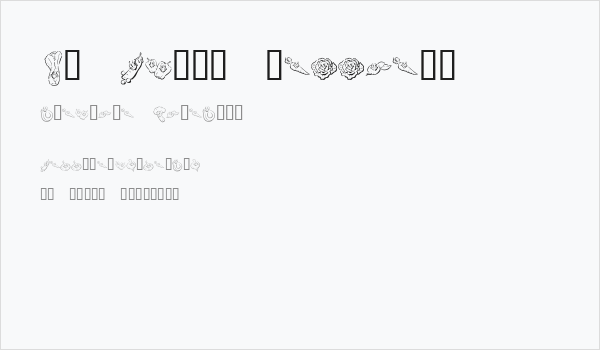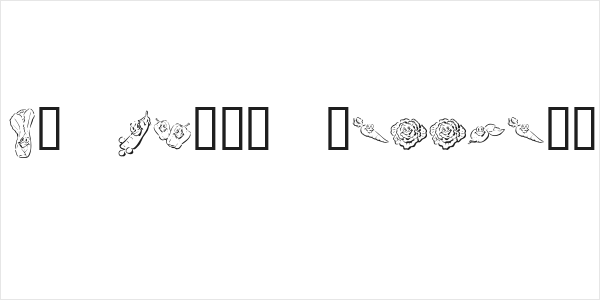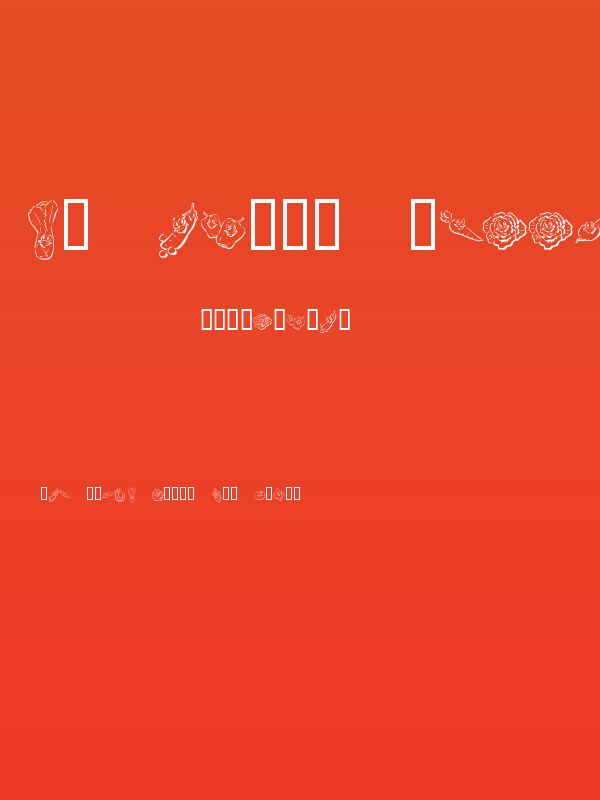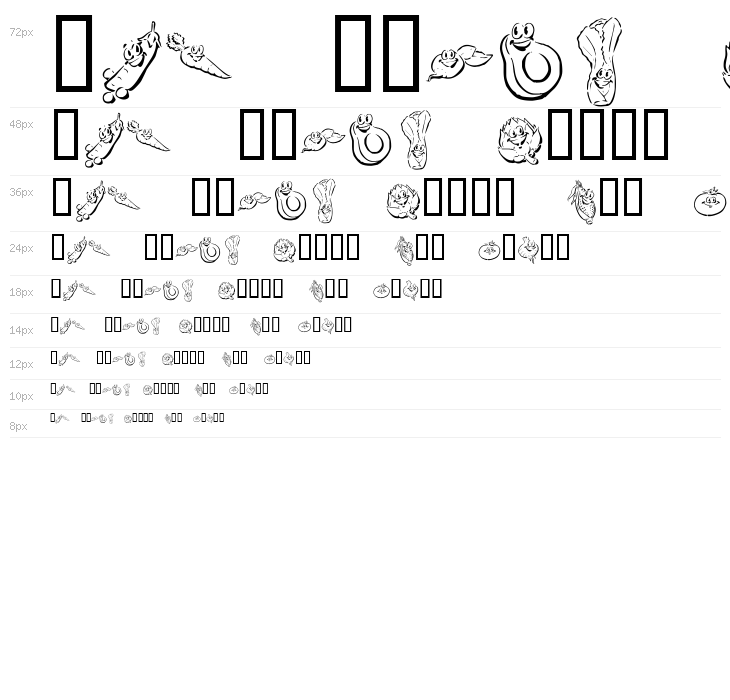
KR Happy Veggies! Font
KR Happy Veggies! Description
This is a playful and whimsical decorative font featuring a variety of happy vegetable illustrations. Each character is represented by a different vegetable, adding a unique and fun element to the design. The font is highly decorative, making it ideal for projects that require a touch of humor and creativity. The illustrations are detailed and expressive, capturing the joyful essence of each vegetable character.
| Use Case | Logos, Posters, Children's materials |
| Proposed Projects | Ideal for children's books, educational materials, food-related branding, and playful graphic design projects. |